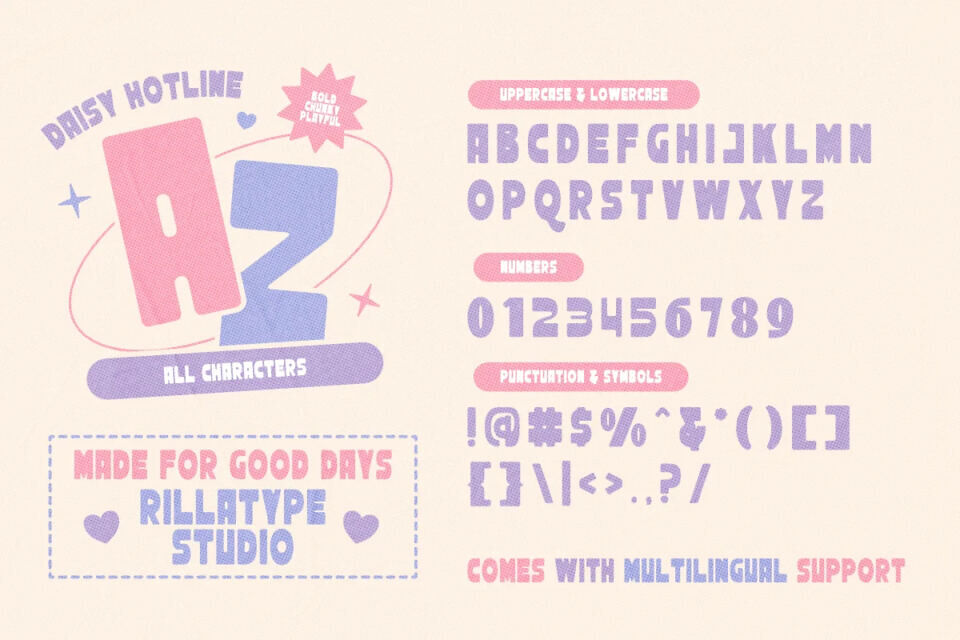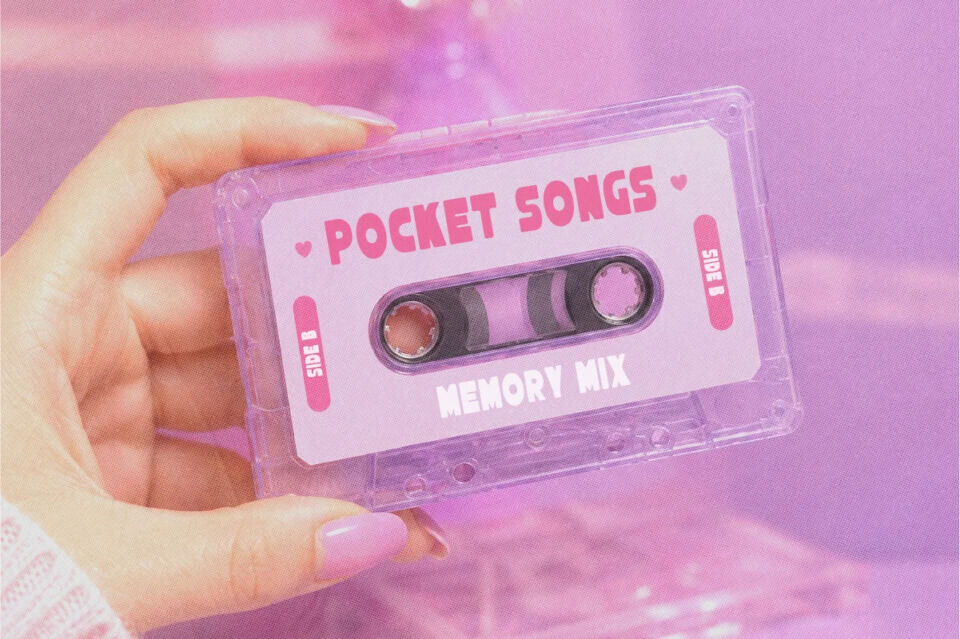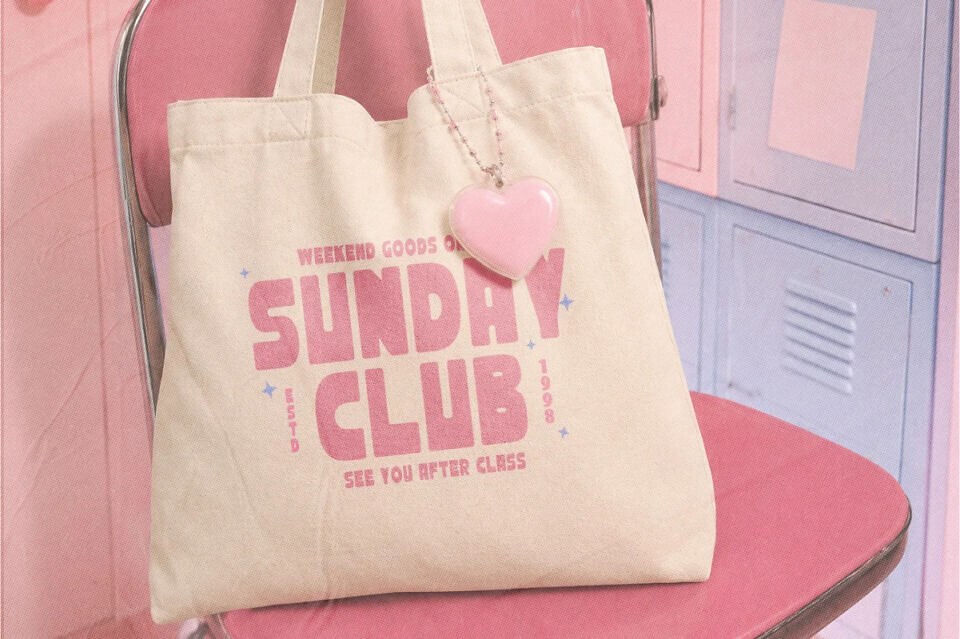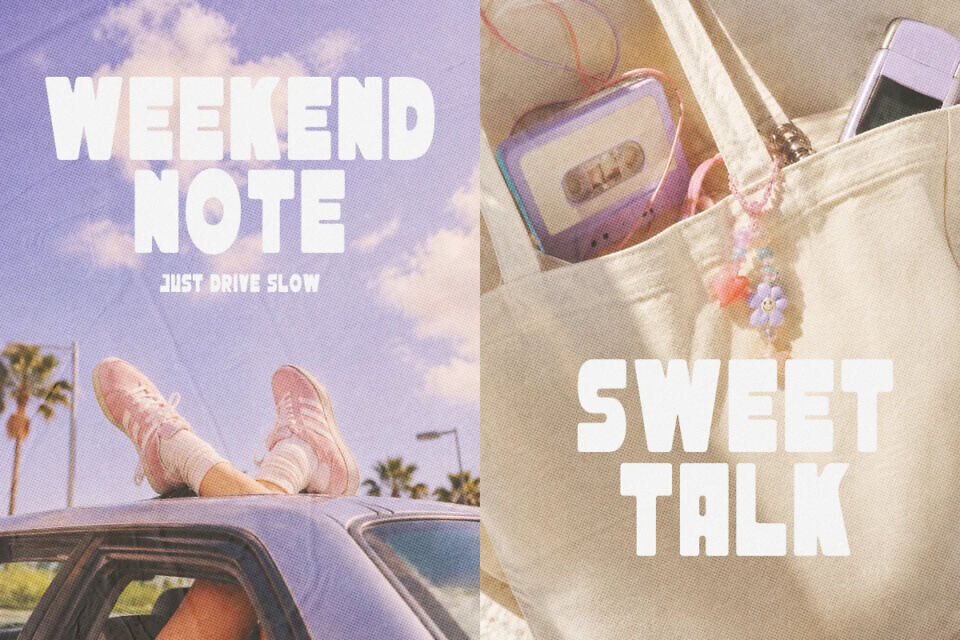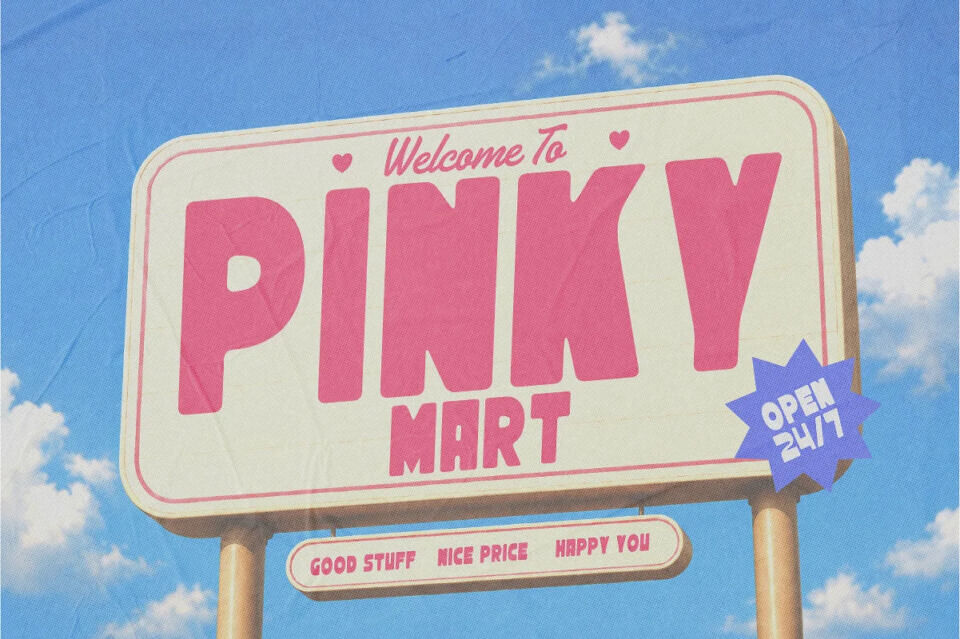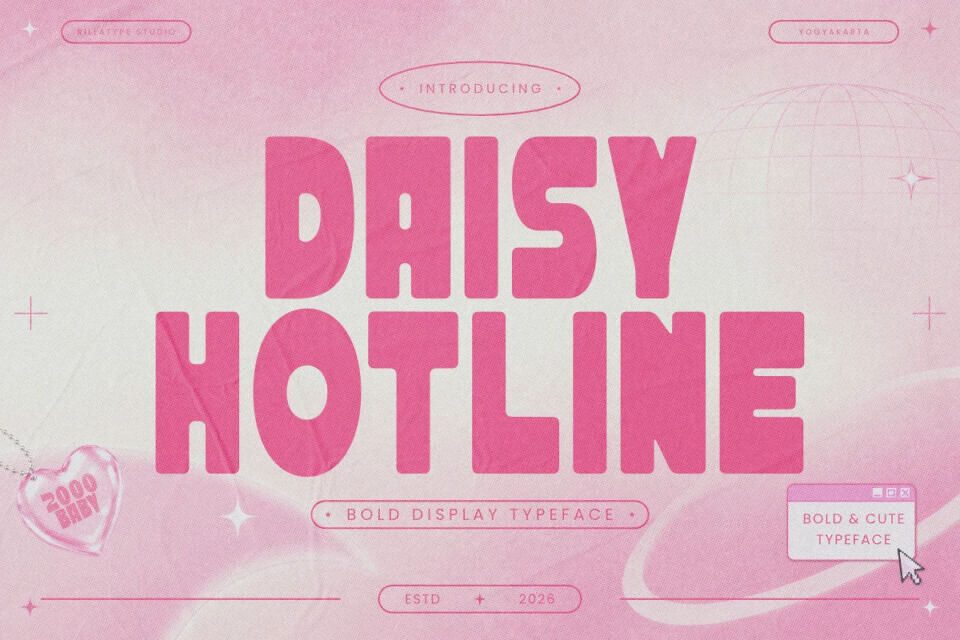
RT Daisy Hotline Font
Rt Daisy Hotline Font
Daisy Hotline is a cute retro display font made for cheerful, nostalgic, and playful design projects. With its bold chunky shapes, soft rounded details, and friendly rhythm, this font brings a sweet vintage-pop personality to every layout.
It’s perfect for creating fun, eye-catching designs. Suitable for logos, packaging, and social media posts, its bold style shines in title text and brand names. This font is ideal for designers and small businesses seeking a cute, retro look with a warm feel, adding instant personality to various projects, from boutique brands to music-inspired graphics.